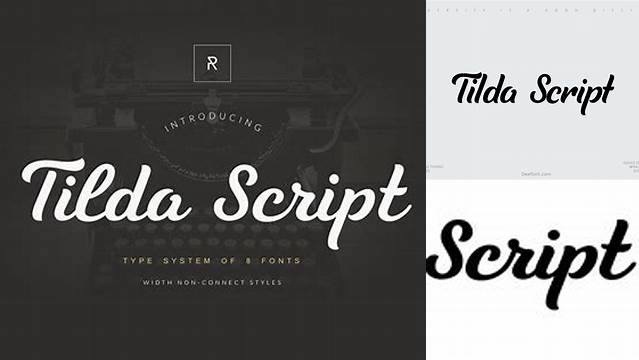
Hey guys, are you looking for a killer font to spice up your designs? Well, you're in luck! Today, we're diving deep into the world of the Tilda Script Bold font and, more importantly, how you can snag a free download of this beauty. This font is a real game-changer, bringing a touch of elegance and flair to any project. Whether you're a seasoned designer or just starting out, having access to awesome fonts is crucial. So, let's get started and explore everything you need to know about the Tilda Script Bold font and how to get it without spending a dime! This guide will walk you through the process, ensuring you can start using this fantastic font in your projects right away. From understanding its unique features to finding safe download sources, we've got you covered. Let's make your designs pop with the charm of Tilda Script Bold! Get ready to transform your text and make your work stand out from the crowd. This font isn't just a font; it's a statement. So, buckle up, and let's begin our font adventure! We'll ensure that you can easily integrate this font into your workflow and create stunning visuals that capture your audience's attention. The goal is simple: to empower you with the tools you need to excel in your creative endeavors. Let's unlock the potential of Tilda Script Bold together!
What Makes Tilda Script Bold Font Special?
Alright, let's get into what makes the Tilda Script Bold font so special, shall we? This font is not your run-of-the-mill typeface; it's got character! What immediately grabs your attention is its beautiful, flowing script style. It's like the letters are dancing across the page, adding a touch of sophistication and personality. The bold part of the name means it's a thicker version of the original Tilda Script, which makes it perfect for grabbing attention. This added weight ensures your text stands out, making it ideal for headlines, titles, and any instance where you want to make a statement. It's a go-to choice for anyone looking to add a touch of elegance, charm, and readability to their designs. This font truly shines in projects where you want to convey a sense of luxury, creativity, or personal touch. Its versatility allows it to be used in various contexts, from wedding invitations to branding materials, and it always delivers a professional and eye-catching result. The subtle details in each letter make it a real head-turner, and it's the kind of font that elevates the overall look of your work. It's a great way to ensure your message resonates with your audience. Tilda Script Bold isn’t just about aesthetics, it’s about creating an experience for the viewer. The design helps draw the reader in, encouraging them to take a closer look. Whether you're designing a logo, crafting a website header, or creating promotional materials, this font will make your work stand out and be remembered. It's not just a font; it’s an investment in the visual appeal of your projects.
Key Features of Tilda Script Bold
Let's break down the key features of Tilda Script Bold to see what makes it so desirable. The first thing you'll notice is the elegant, flowing script, giving it that handwritten feel, which brings a personal touch. This font has a graceful, connected style that's easy on the eyes. The bold weight is another standout feature, giving it excellent visibility, even from a distance. This thickness makes it perfect for grabbing attention. This is especially important for headlines or any text that needs to make a statement. Tilda Script Bold often comes with a variety of glyphs, including special characters and ligatures. This variety helps in creating unique, visually appealing designs. It can add a touch of personalization to your text. The font is designed to be versatile. It is suitable for both print and digital applications. It can be used in any type of design project, from logos to websites. Its high level of readability makes it a reliable choice for various design needs. It is designed to ensure that your message is conveyed clearly and beautifully. The design also helps increase the overall impact of your work. It's designed to be both functional and stylish. The details of each letter are carefully crafted to make the overall presentation impressive. This ensures that you can create impressive designs.